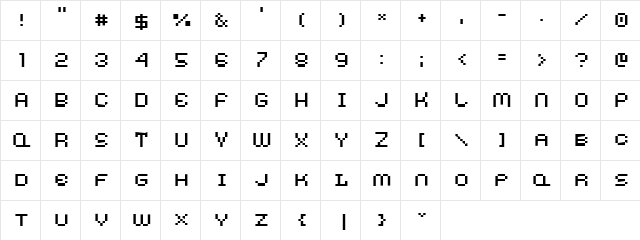
AuX DotBitC Xtra SmallCaps Regular
Design Context for AuX DotBitC Xtra SmallCaps Typeface
AuX DotBitC Xtra SmallCaps is rooted in pixel-grid construction, making it a natural fit for game UI, retro computing aesthetics, and digital nostalgia projects.
Well-suited to indie game interfaces, retro computing aesthetics, and pixel art-adjacent design work.
Pro Tip: Use AuX DotBitC Xtra SmallCaps at sizes that align with its pixel grid for the sharpest rendering — scaling to non-integer multiples can introduce unwanted blur.